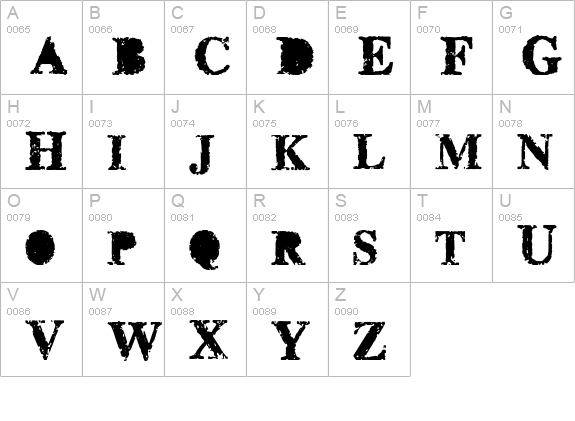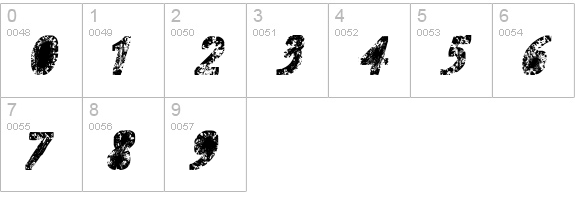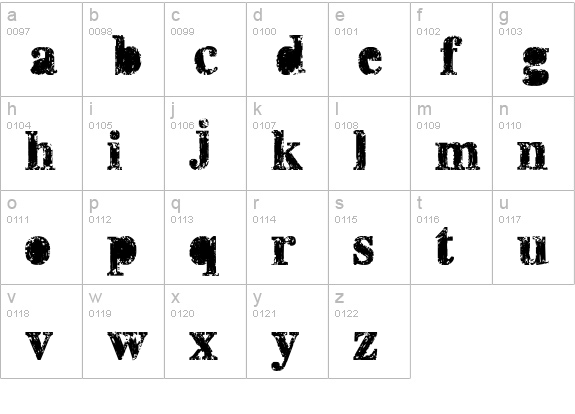
misprinted type Font Details
Introducing the Misprinted type font, a unique and quirky font style that adds a touch of playful imperfection to your designs. This font features charmingly irregular letters, with uneven lines and quirky shapes that give your text a one-of-a-kind look. Whether you're creating posters, logos, or social media graphics, the Misprinted font is sure to make your designs stand out. Best of all, this font is freely available to download at FontsMarket.com. Simply visit the website and add this delightful font to your collection at no cost. Embrace the beauty of imperfection and bring a touch of whimsy to your projects with the Misprinted type font. Download it today and let your creativity run wild!